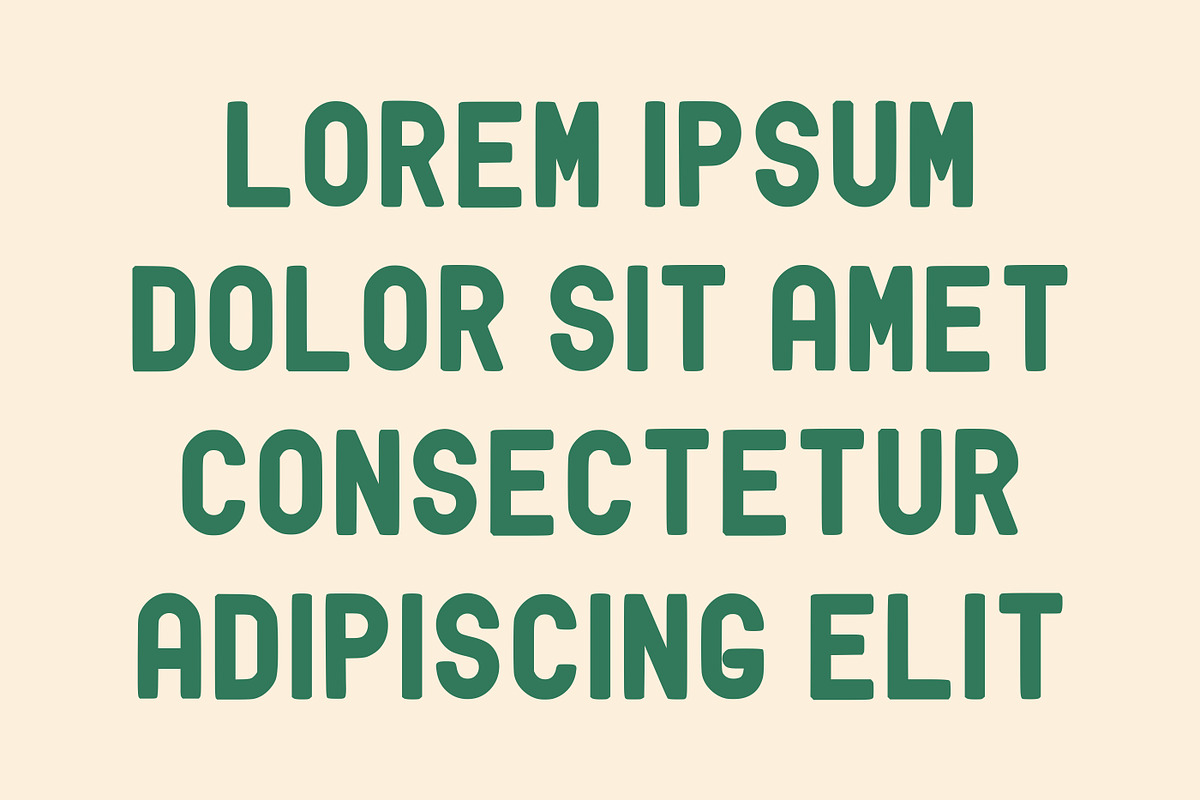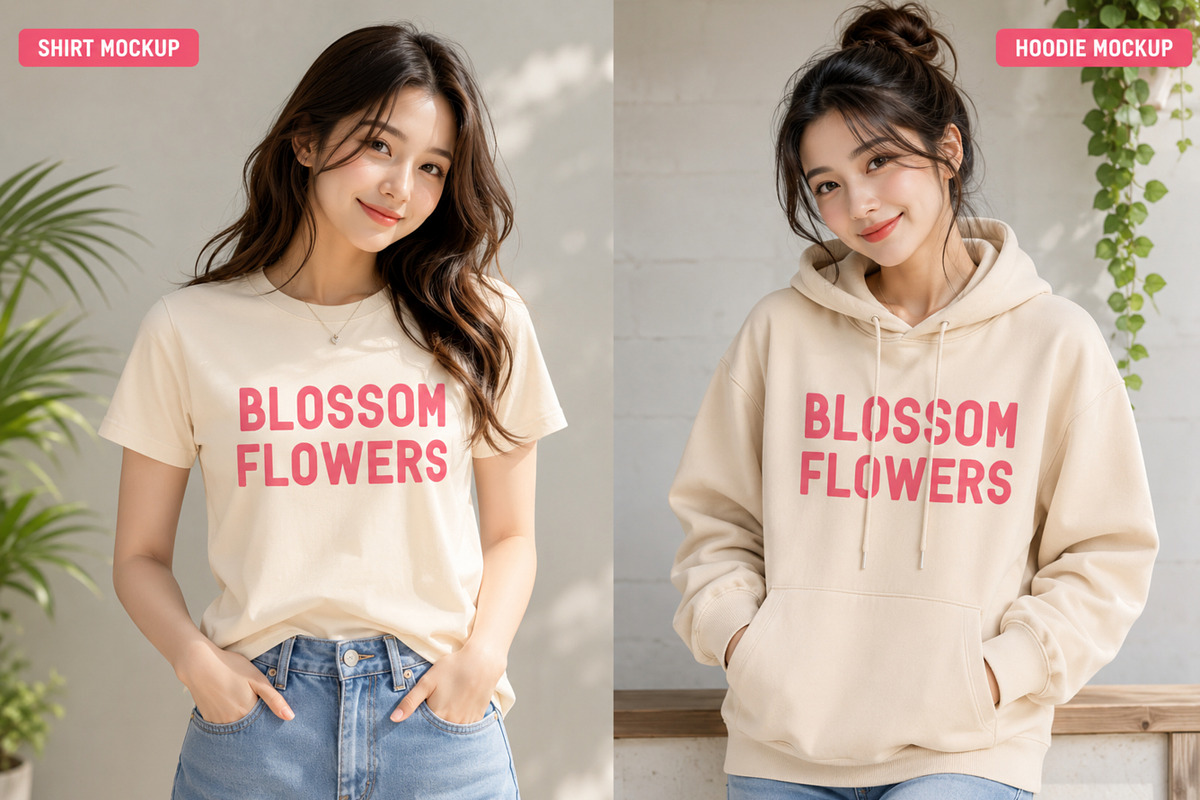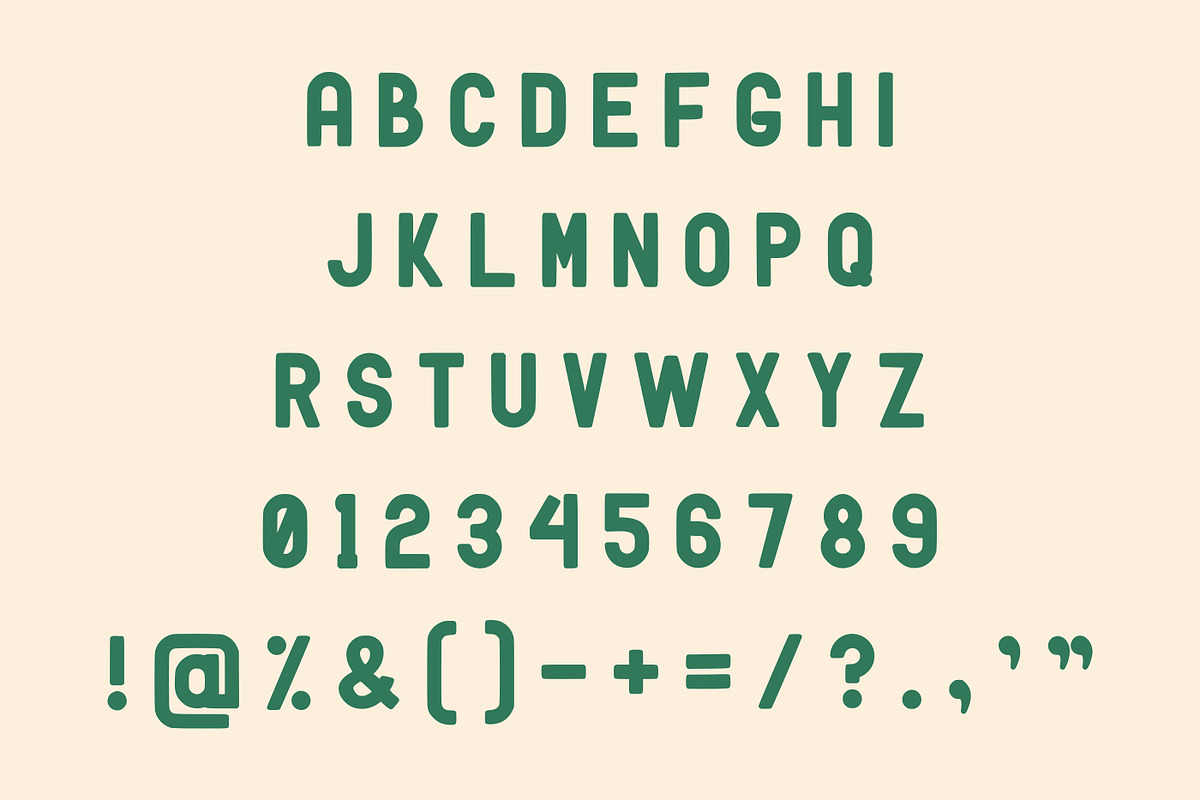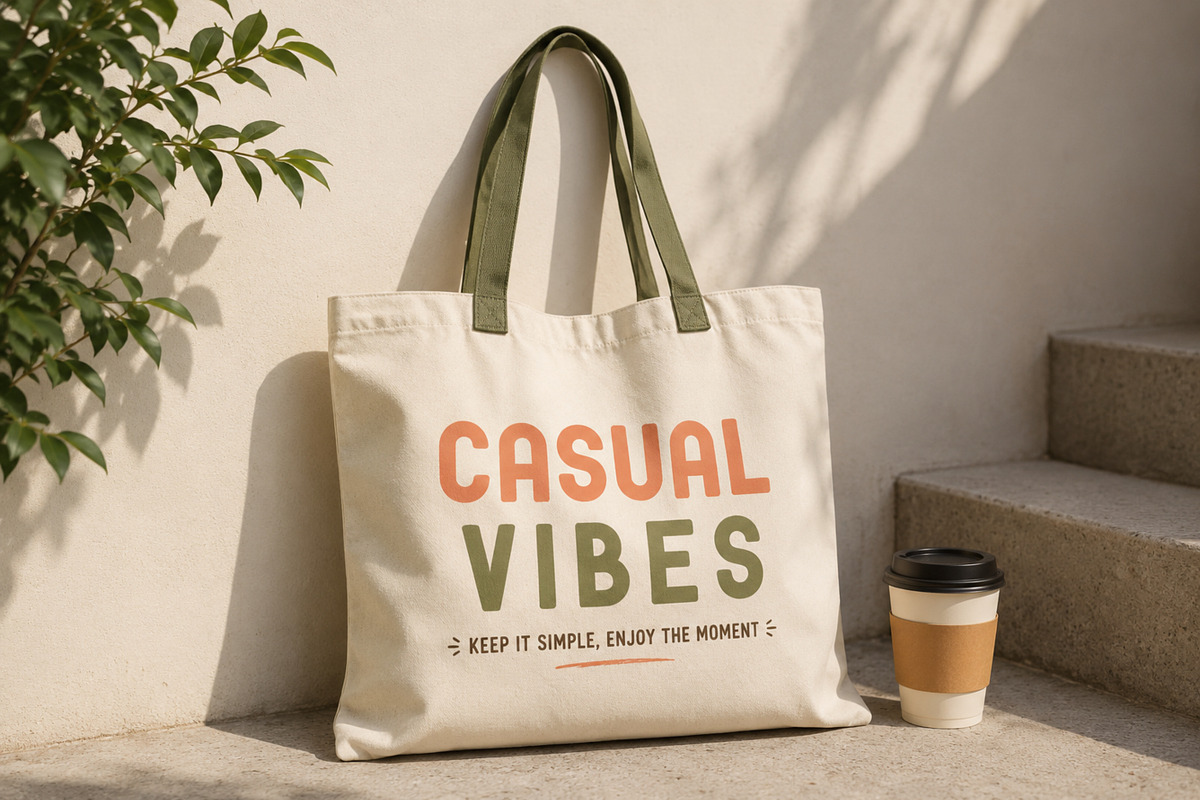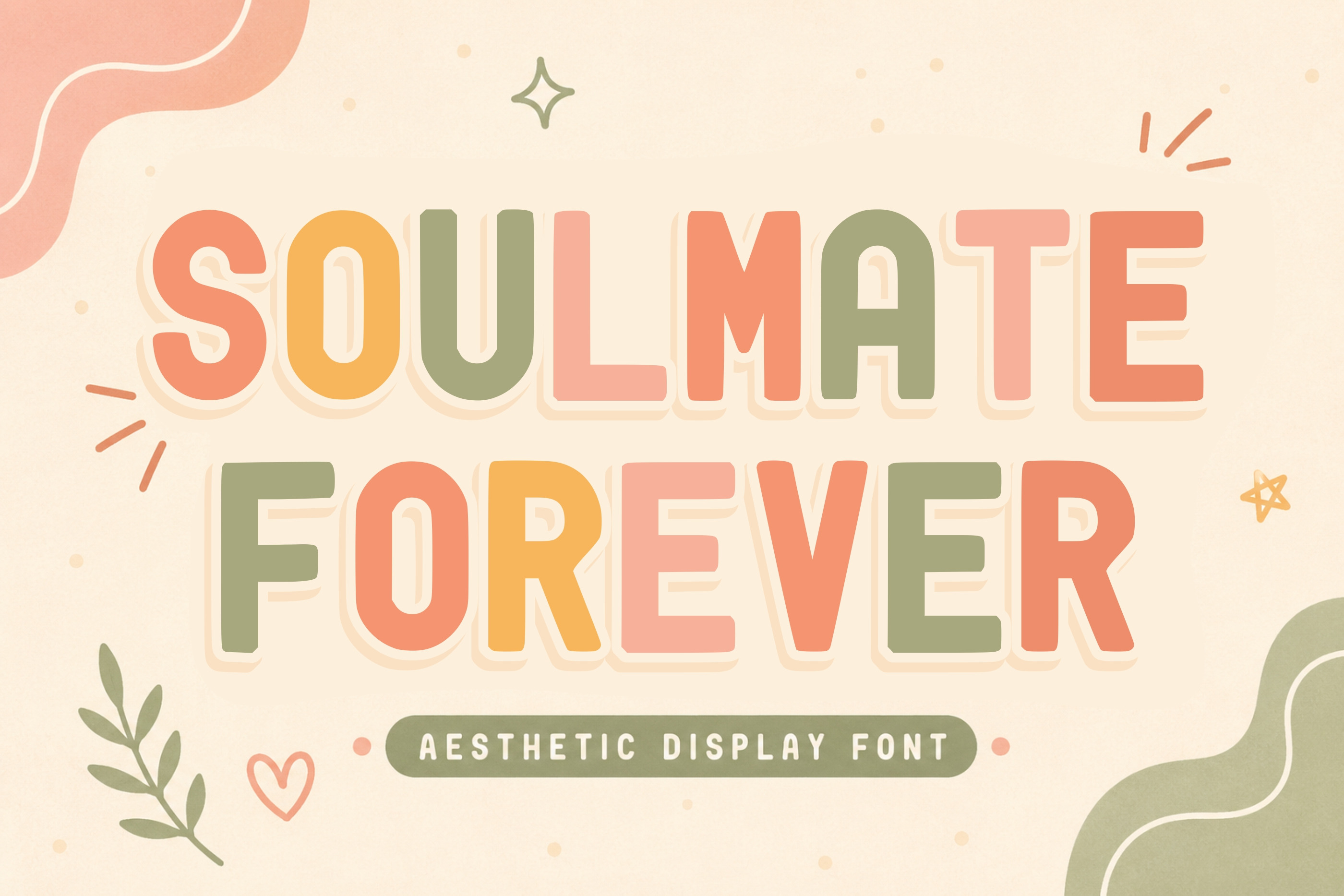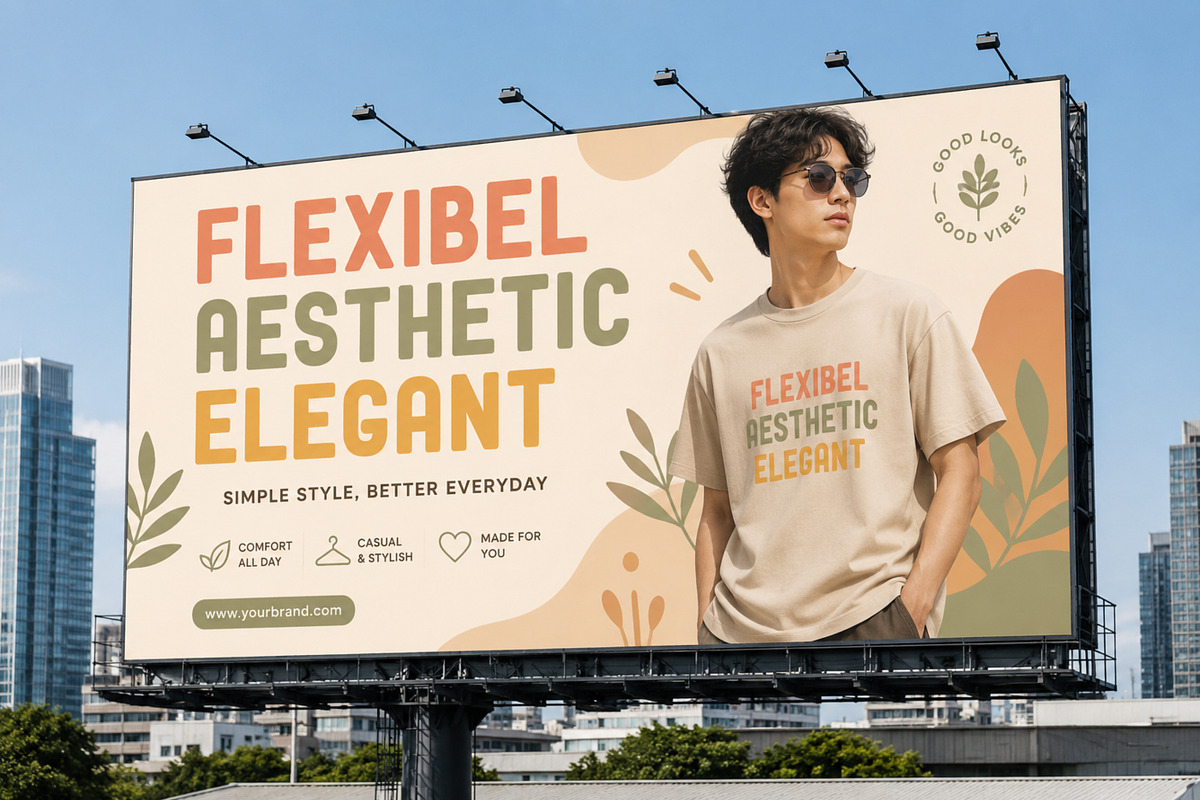
Soulmate Forever – Cute Display Font
Soulmate Forever is a charming display font designed with rounded letterforms, soft curves, and a cozy retro-inspired aesthetic. Its cheerful personality makes it perfect for projects that need a friendly, inviting, and heartwarming touch.
Whether you're creating branding for handmade products, children's designs, social media graphics, greeting cards, apparel, or packaging, Soulmate Forever delivers a clean yet playful look that stands out beautifully across both print and digital media.
Ideal for:
Branding & Logos
Children's Products
T-Shirt Designs
Stickers & Labels
Greeting Cards
Wedding & Baby Invitations
Social Media Templates
Posters & Flyers
Craft Projects
Cricut & Silhouette Designs
Nursery Decor
Quotes & Wall Art